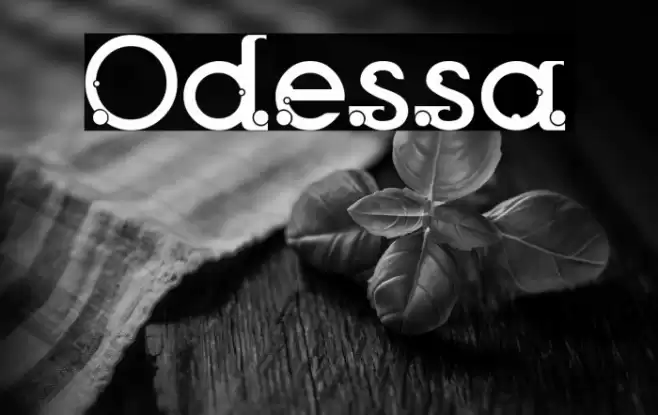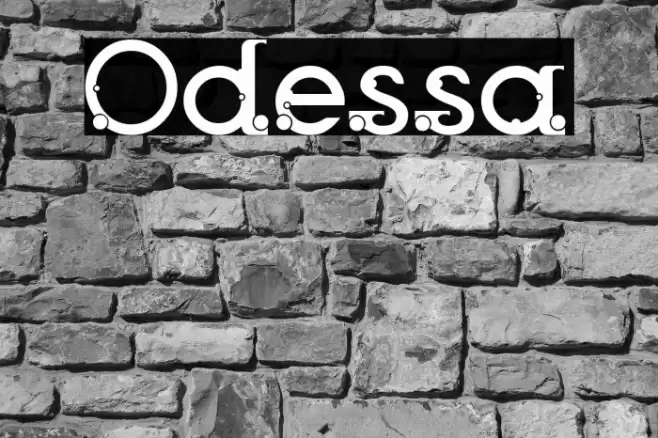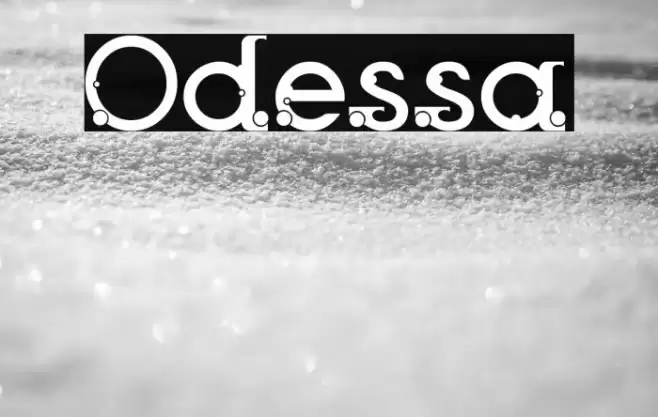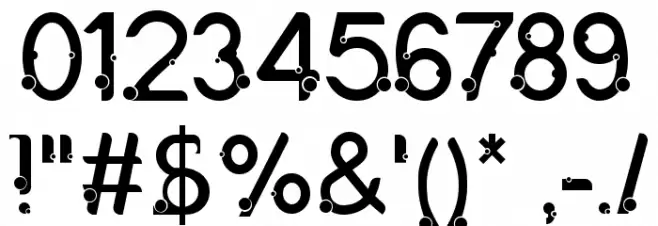
Odessa Font
Odessa Description
This font features a unique and playful design with circular embellishments at the ends of each stroke, giving it a mechanical and industrial feel. The characters are bold and have a consistent stroke width, which adds to their strong visual presence. The circular elements create a sense of movement and rhythm, making the font stand out in any design. The uppercase and lowercase letters maintain a uniform style, while the numerals and special characters are crafted with the same attention to detail. This font is ideal for projects that require a distinctive and eye-catching typeface.
A bold, industrial-style font with circular embellishments for a playful yet strong appearance from Uncategorized fonts.
- Proposed Projects: Ideal for branding, posters, and creative projects that require a standout typeface.
- Overall Style: Modern, Decorative